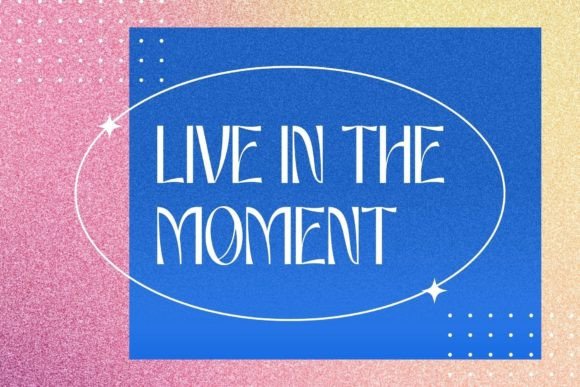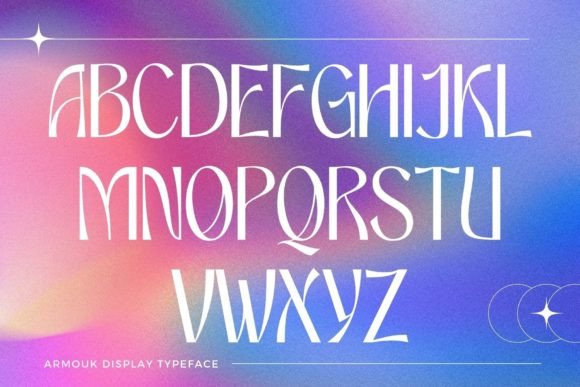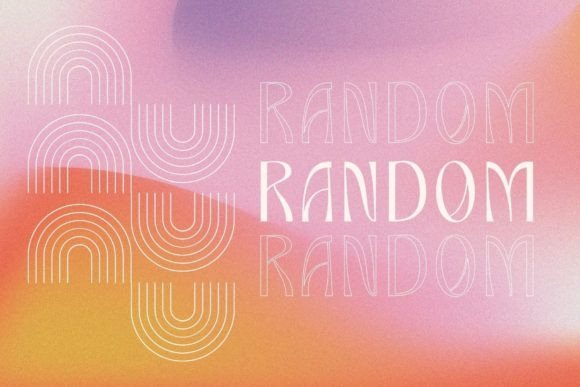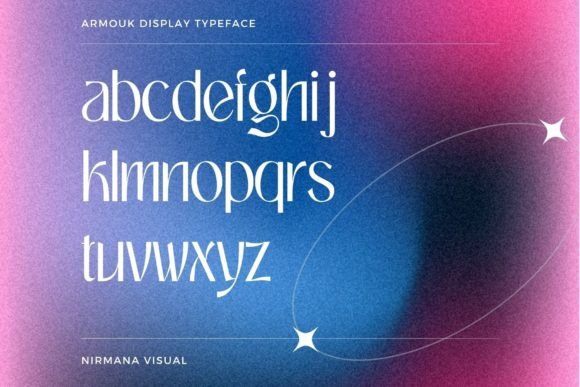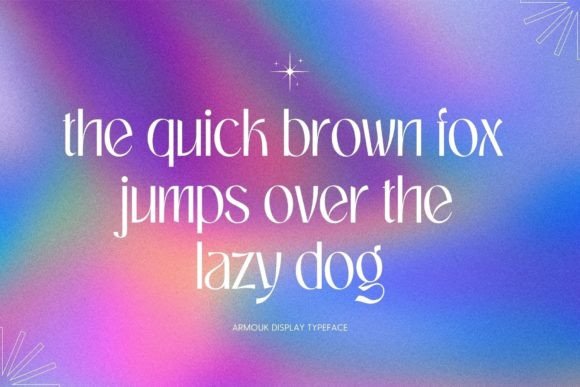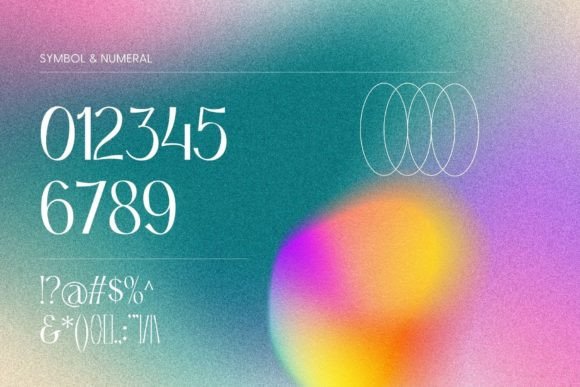
Discover the Perfect Harmony in Armouk Font
Remember the moment when you stumbled upon that perfect font that elevated your design from ordinary to extraordinary? It’s a feeling that every designer strives for, and I’m excited to share with you a contemporary display font that will make your creative moments even more magical – the Armouk Font. This beautiful typographic harmony is designed to take your designs to the next level, whether you’re working on logos, branding, social media posts, or advertisements.
What makes the Armouk Font truly valuable is its versatility and sophistication. With its unique blend of modern and classic elements, this font is perfect for designers who want to add a touch of elegance and sophistication to their projects. Whether you’re a seasoned pro or just starting out, the Armouk Font is an excellent addition to your design toolkit.
Armouk Font Key Features
- Unique Characteristics: The font features a unique blend of geometric and organic elements, creating a distinctive aesthetic that sets it apart from other sans-serif fonts.
- Kerning and Ligatures: The font includes advanced kerning and ligature pairs, ensuring smooth and elegant text rendering.
Armouk Font Review
Overall, I think Armouk Font is a decent choice for projects that require a unique, elegant touch. ✨ Its combination of rounded edges and sharp lines creates a visually appealing contrast that can add a touch of sophistication to your designs.
The font’s legibility is also a major plus, making it suitable for both body text and headings. The letterforms are well-proportioned and easy to read, even at smaller sizes.
However, there are some limitations to consider: ⚠️ The font’s range of weights is somewhat limited, which may not be ideal for projects that require a wide range of styles. Additionally, the font may not be as versatile as some other options, which can make it more challenging to use in certain design contexts.
Here are some key points to keep in mind:
- Unique and elegant design ✨
- Good legibility, suitable for body text and headings
- Well-proportioned letterforms
- Limited range of weights ⚠️
- May not be as versatile as other options ⚠️
Overall, I would recommend Armouk Font for projects that require a touch of elegance and sophistication. However, it may not be the best choice for projects that require a wide range of styles or a high level of versatility.
Tip: Use Armouk Font for titles and headings to add a touch of elegance to your designs. Experiment with different font sizes and colors to create visually appealing contrasts.
Tip: Use Armouk Font for custom typography projects, such as logo design or brochure layouts. Take advantage of the font’s unique features, like ligatures and swashes, to add a personal touch.
Tip: Use Armouk Font for presentations and reports to add a professional touch. Use the font consistently throughout your document to create a cohesive look.
Armouk Font is ideal for:
- Typography-based art and design
- Formal events and announcements